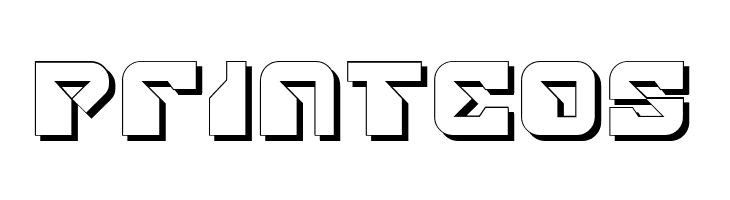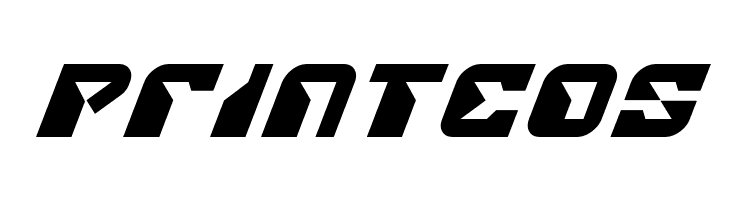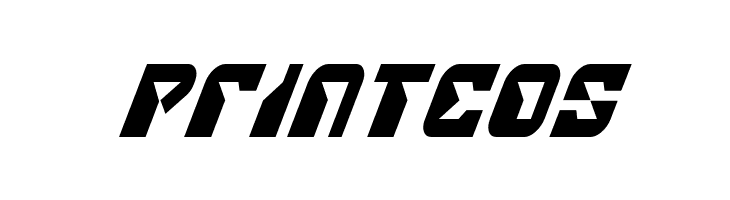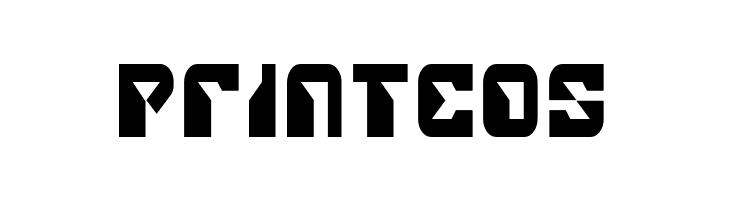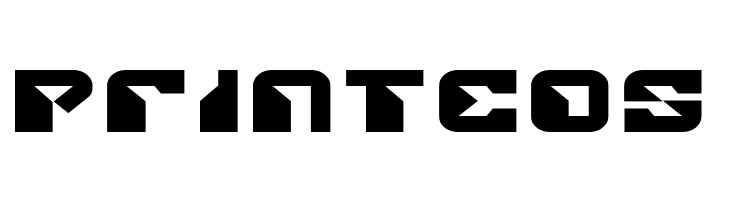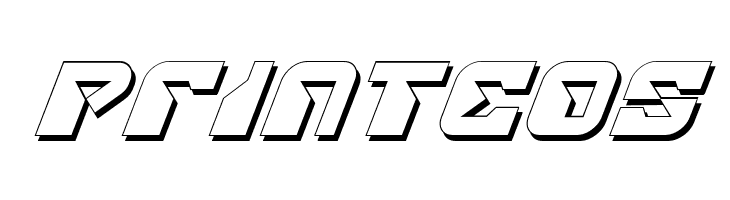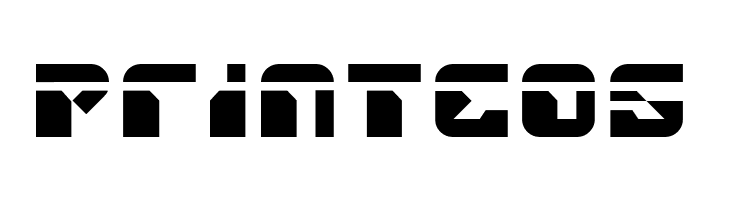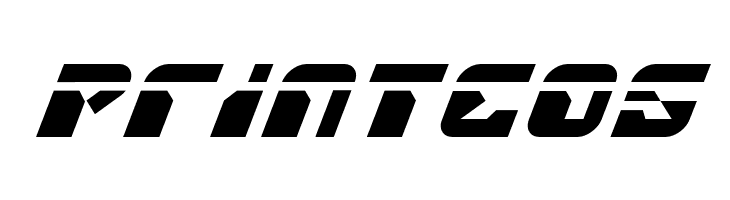
Thors Hammer Carved Font
- Font: Thors Hammer Carved
A bold, futuristic font with a 3D shadow effect and geometric design.
A futuristic, angular font with bold, slanted characters.
A futuristic, bold, and italic font with a condensed and angular design.
A bold, futuristic, and geometric font with a condensed style.
A bold, futuristic font with geometric, angular shapes and a modern, technological feel.
A bold, futuristic font with a three-dimensional shadow effect and italic slant.
A bold, futuristic font with geometric, stencil-like characters.
A bold, futuristic, and angular italic font with a high-tech appearance.